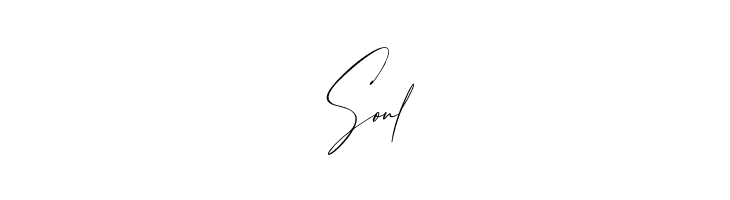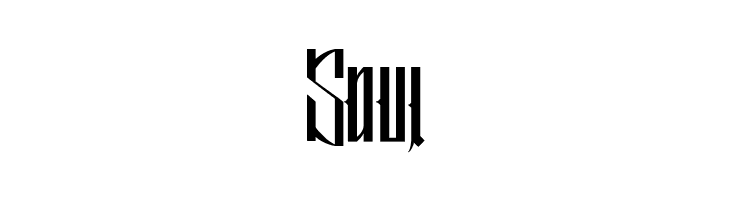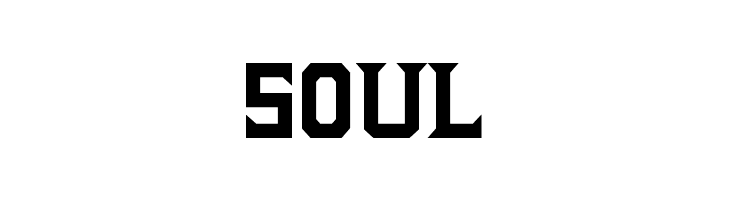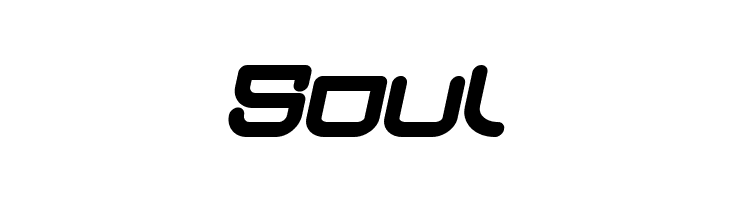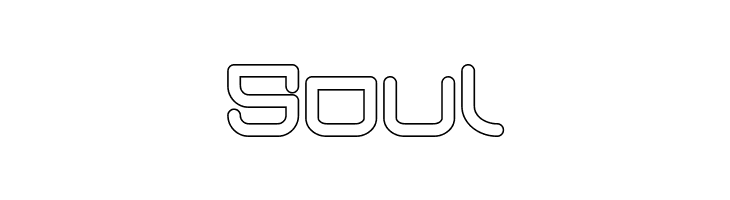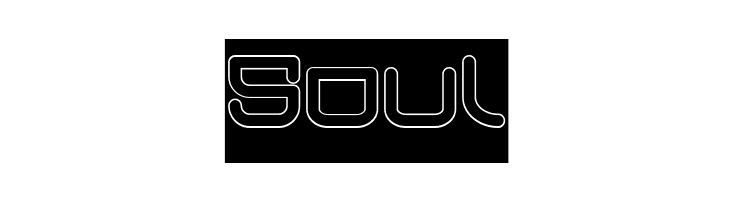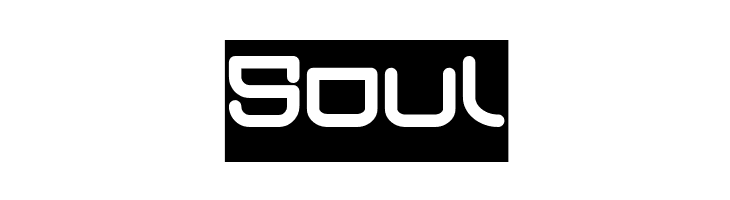
• Janetanice
A cursive, handwritten font with elegant, flowing strokes.
• Janji
A bold, geometric font with a strong, industrial style.
• Janmeja2920a
• Jantung
A bold, geometric font with sharp angles and a modern, futuristic style.
• JAPAN Bold
A bold, geometric font with rounded edges and a futuristic style.
• JAPAN Bold Italic
A bold, italicized font with a futuristic and sleek design.
• JAPAN Italic
A sleek, modern italic font with rounded edges and uniform stroke width.
• JAPAN-Hollow
A hollow, geometric font with a futuristic and minimalist design.
• JAPAN-Hollow-Inverse
A modern, hollow, inverse font with geometric and futuristic design.
• JAPAN-Inverse
A futuristic, geometric font with smooth, rounded edges and consistent stroke width.